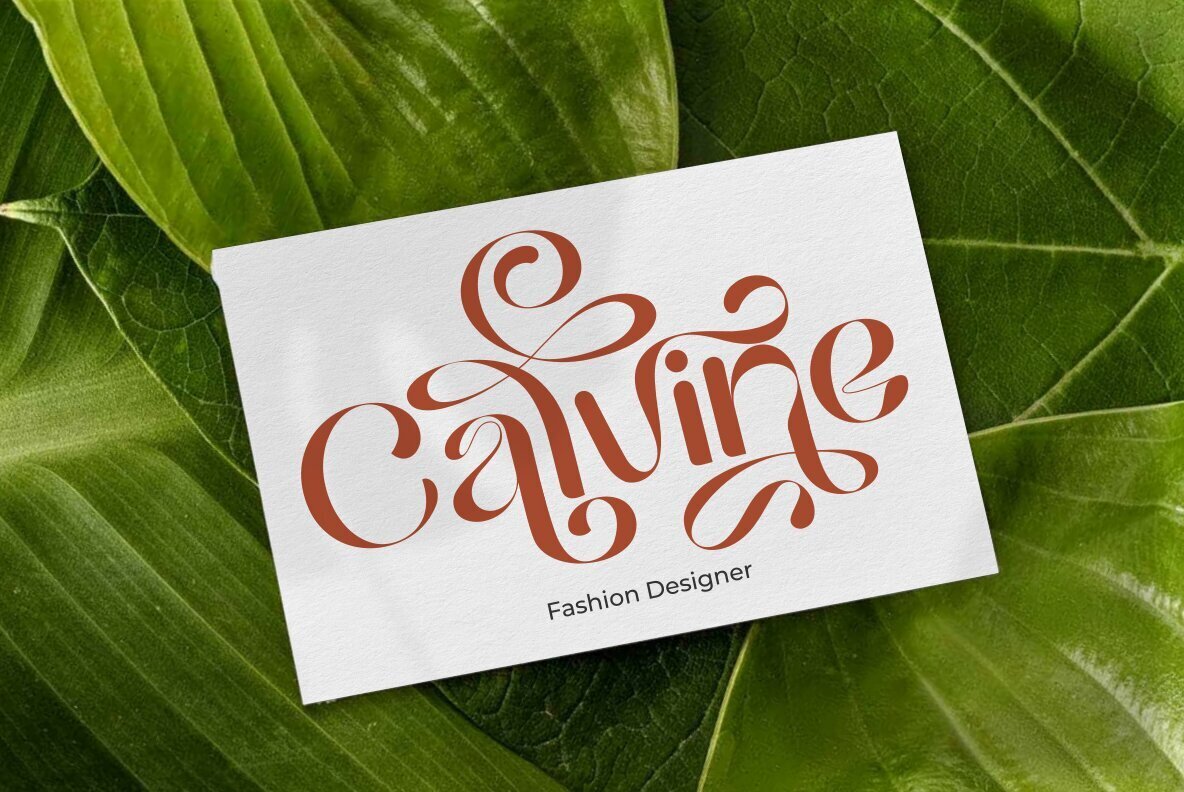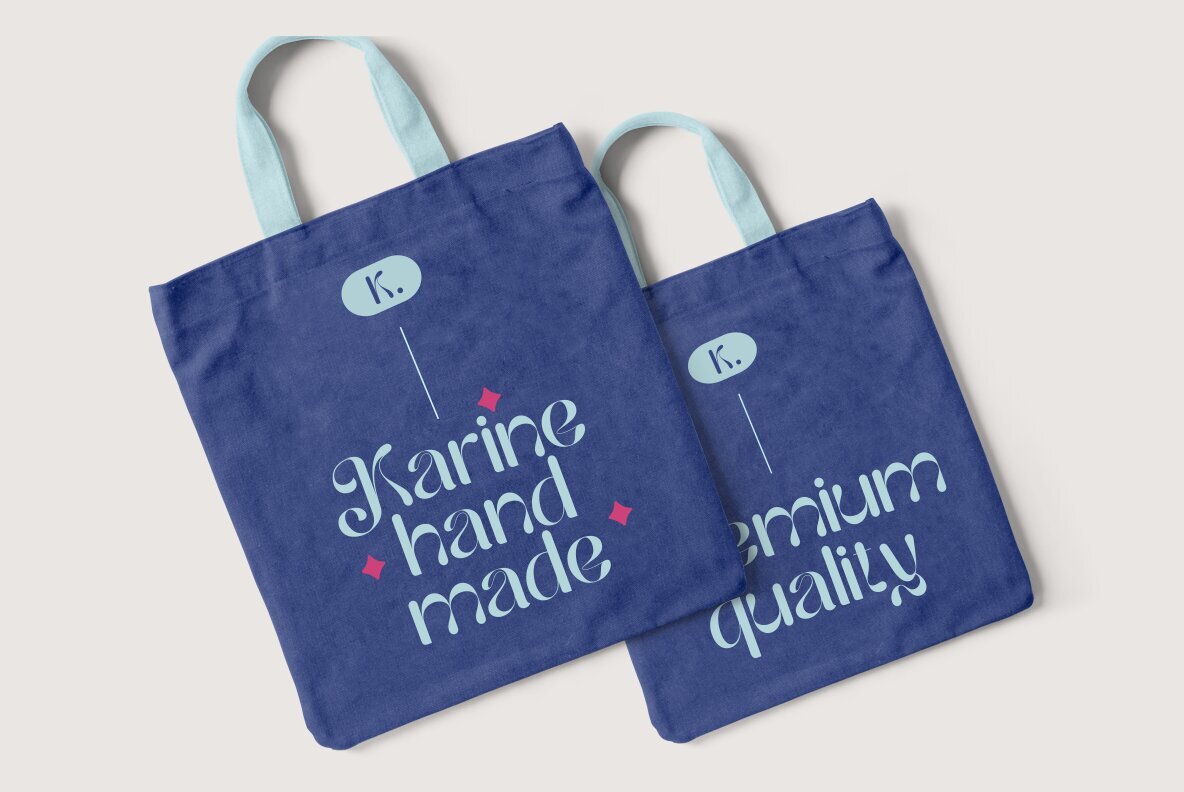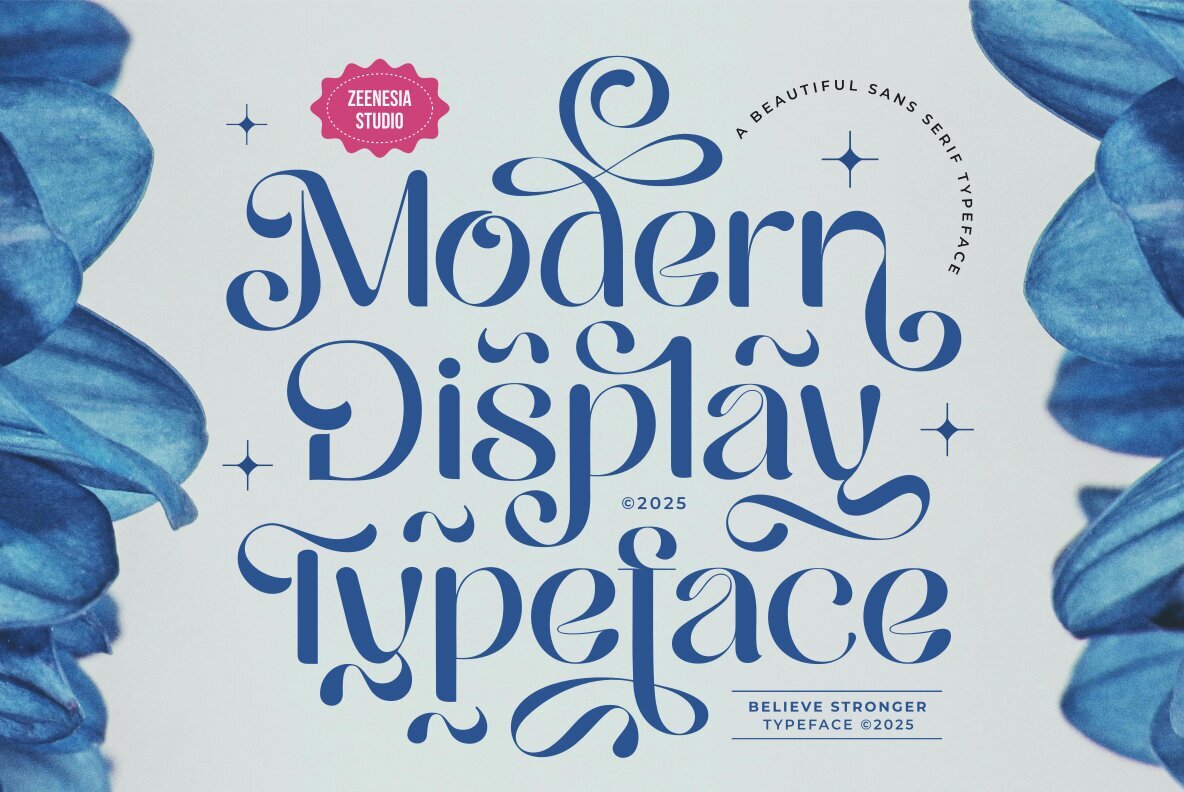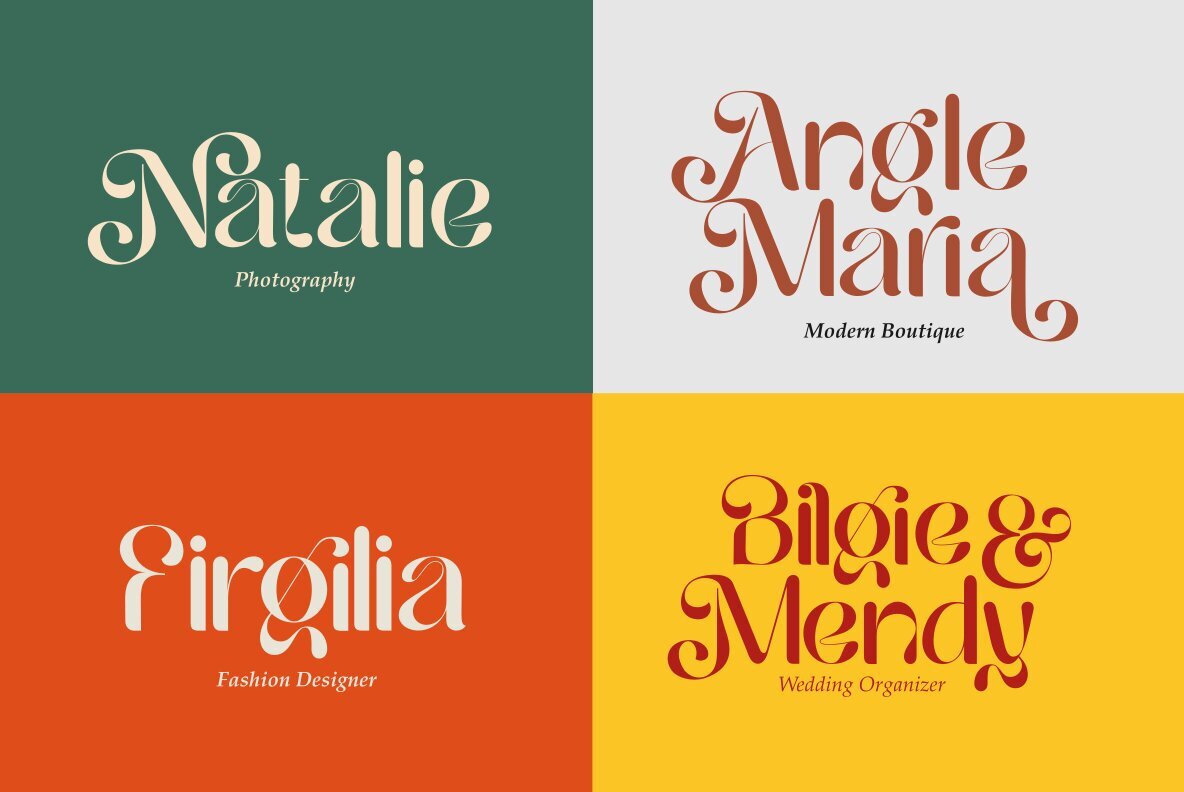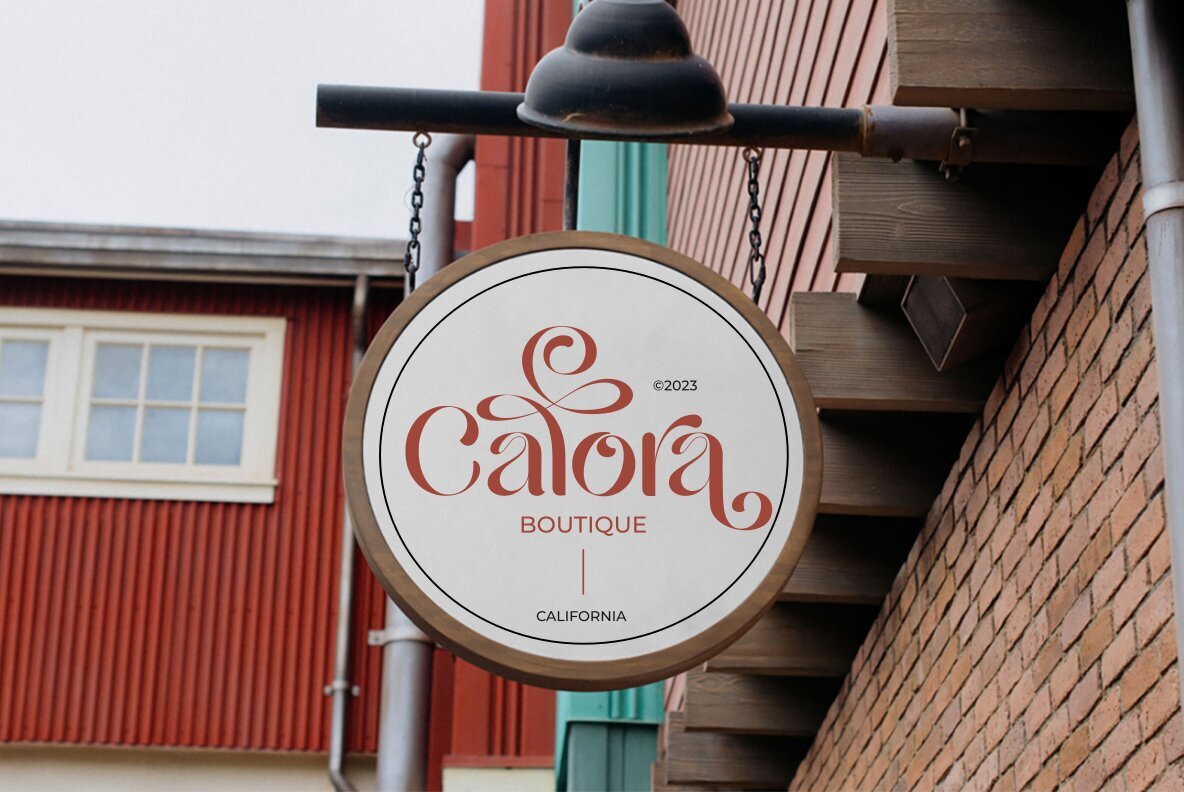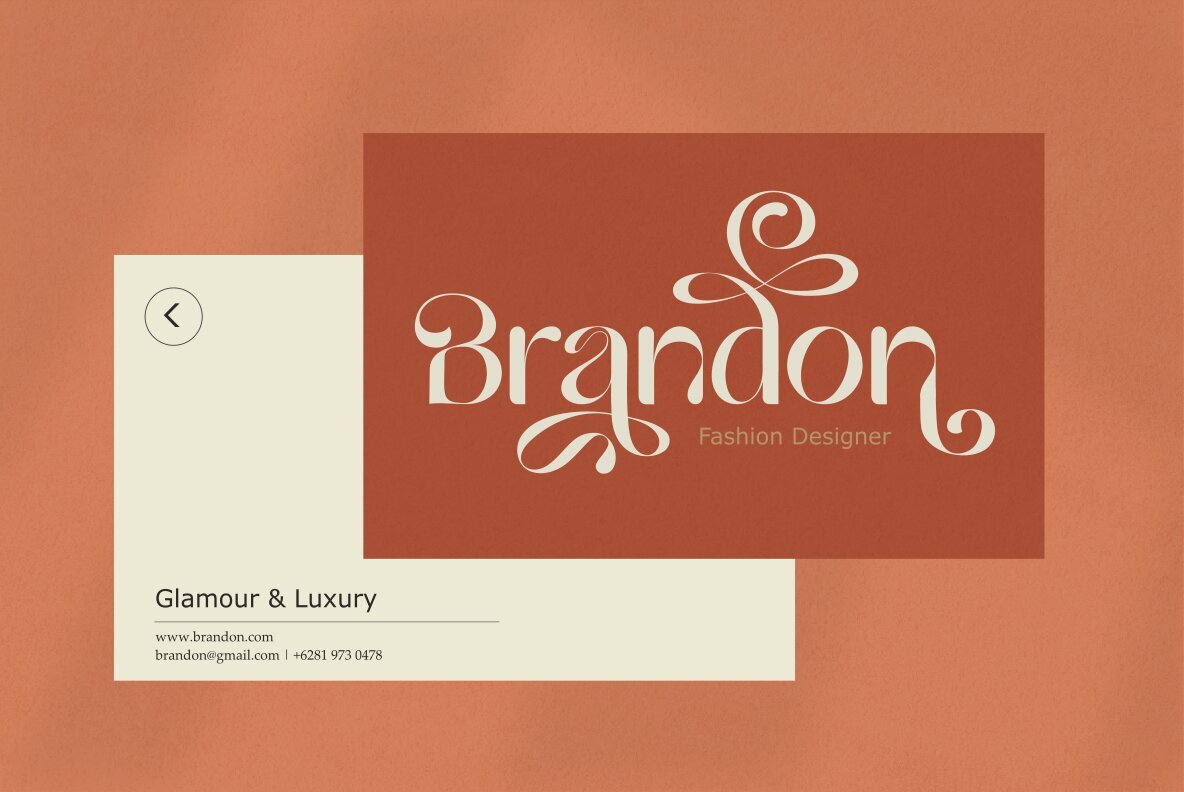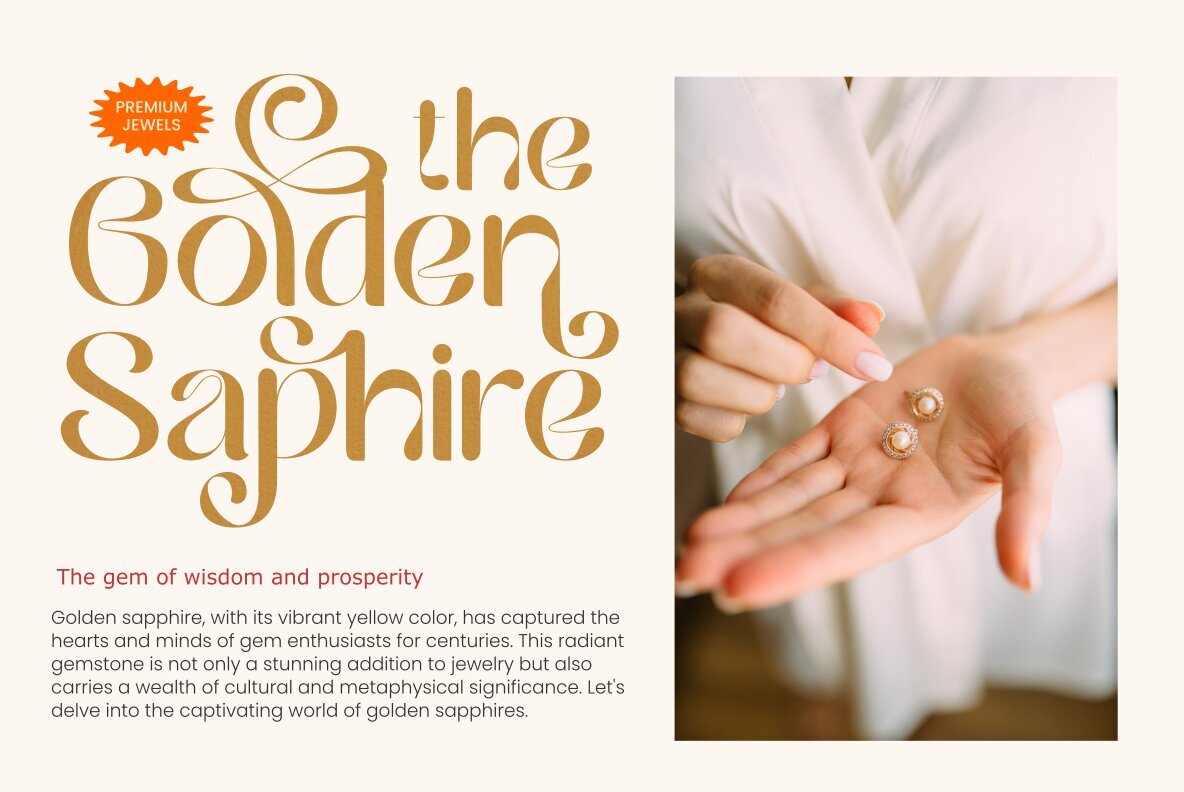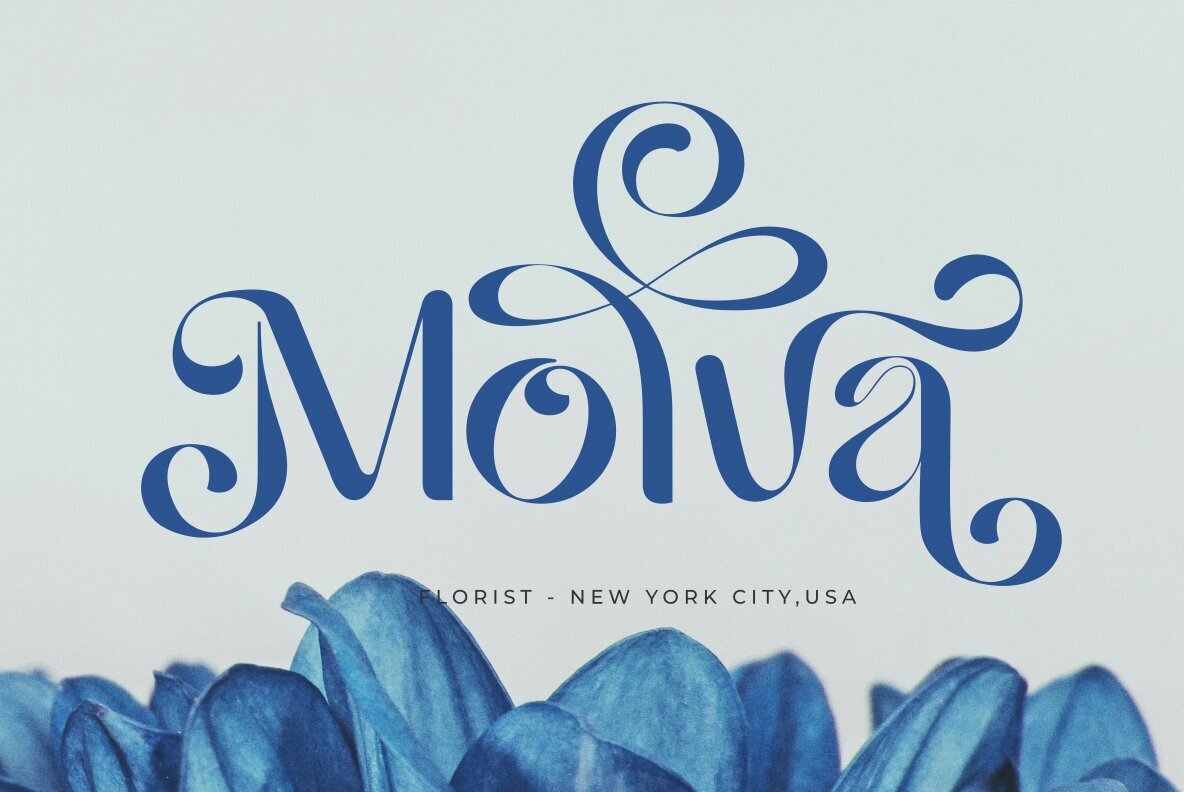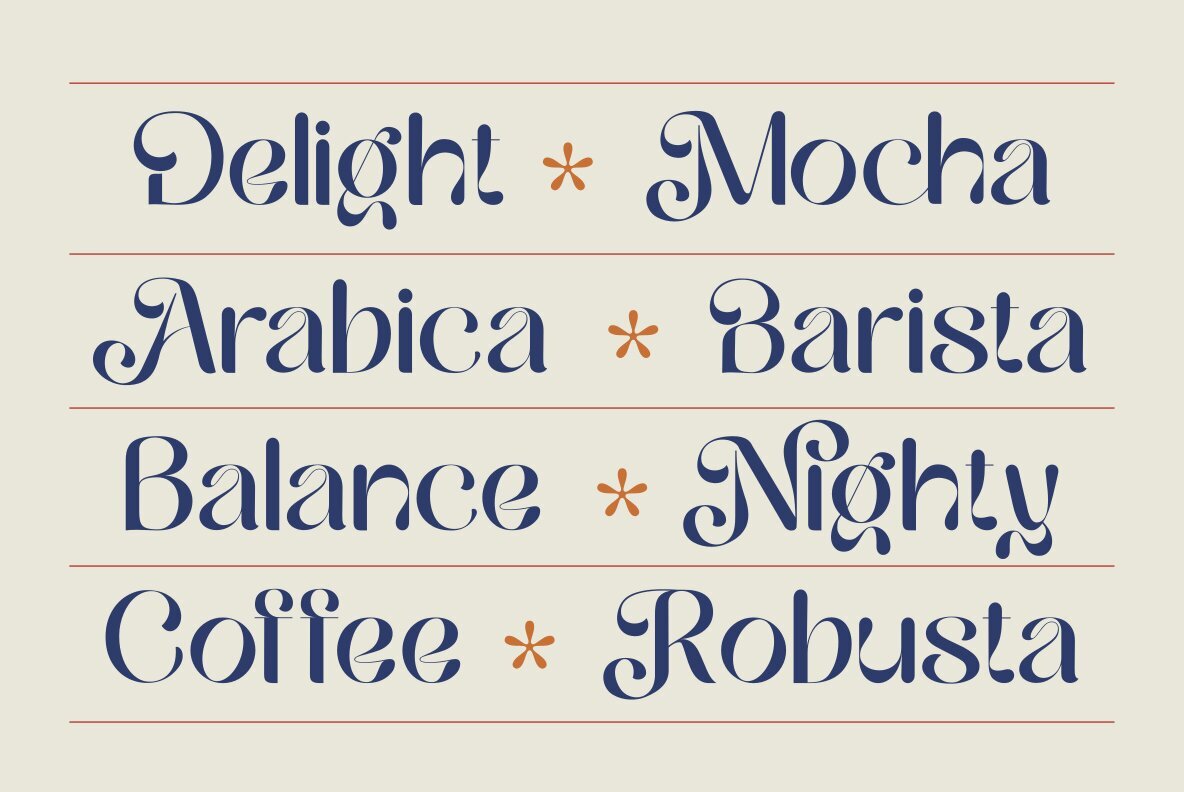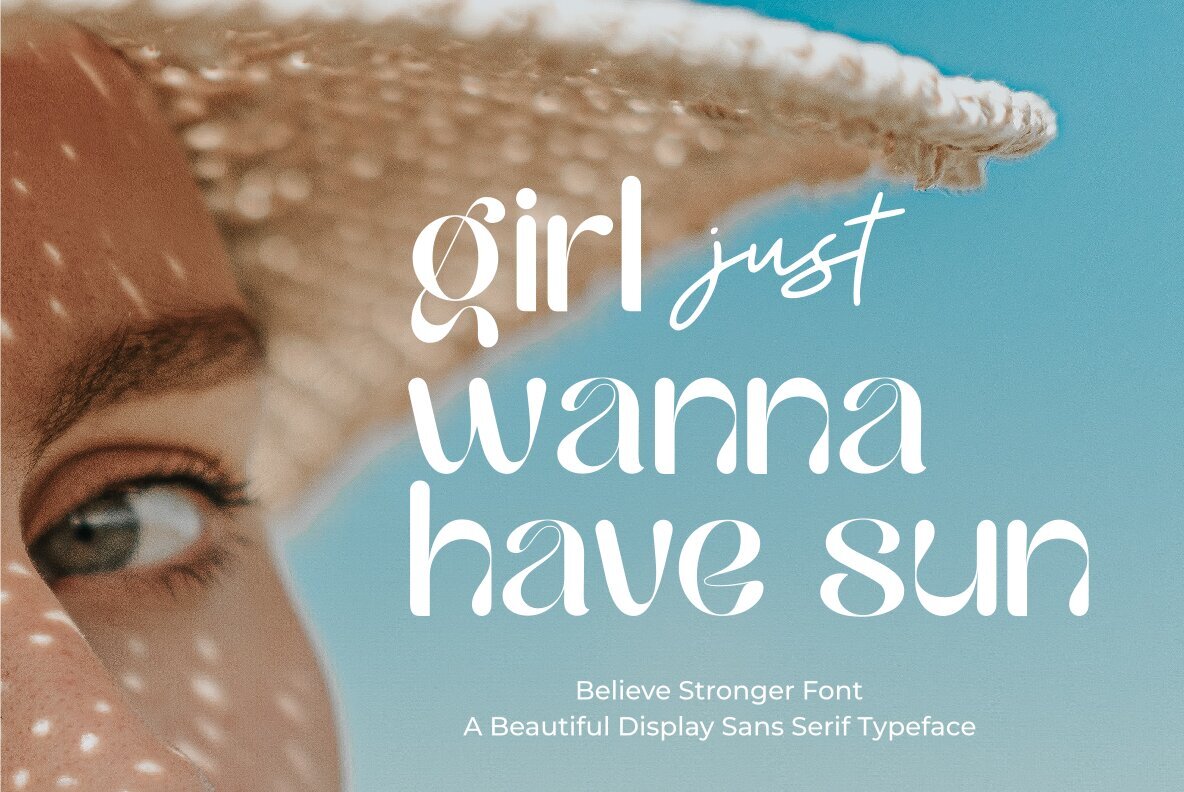
Believe Stronger Font
Believe Stronger Regular
Believe Stronger is a sans serif typeface that marries modern lines with graceful curves, resulting in a timeless design. This font features unique alternates and ligatures, offering customization options for any creative endeavor. Ideal for projects ranging from branding to social media graphics, its simplicity combined with sophistication makes it fitting for both headlines and body text. Designed to bring strength and beauty to your designs, Believe Stronger provides balanced letterforms that open endless possibilities for creative layouts.Believe Stronger: Modern Elegance Meets Versatility